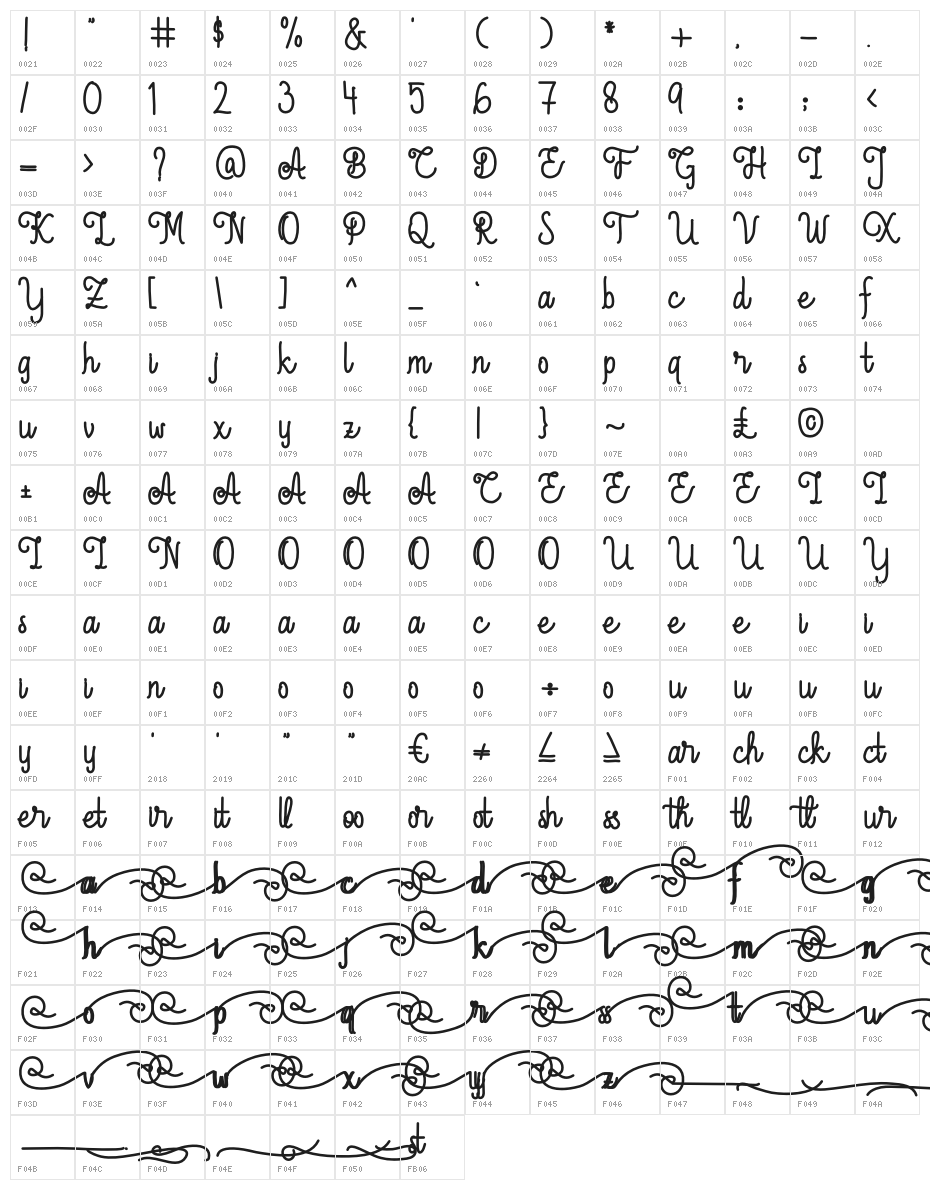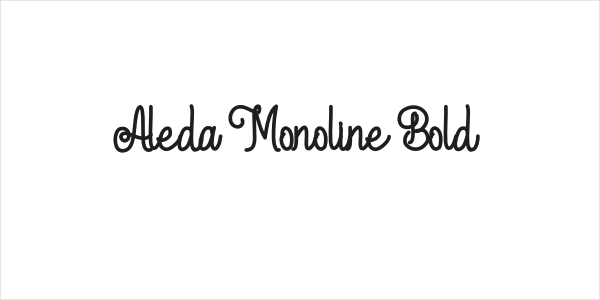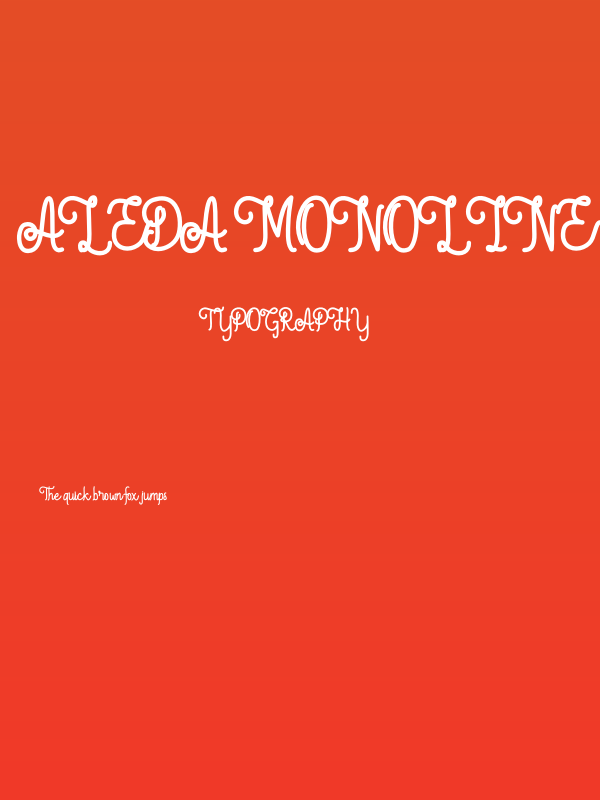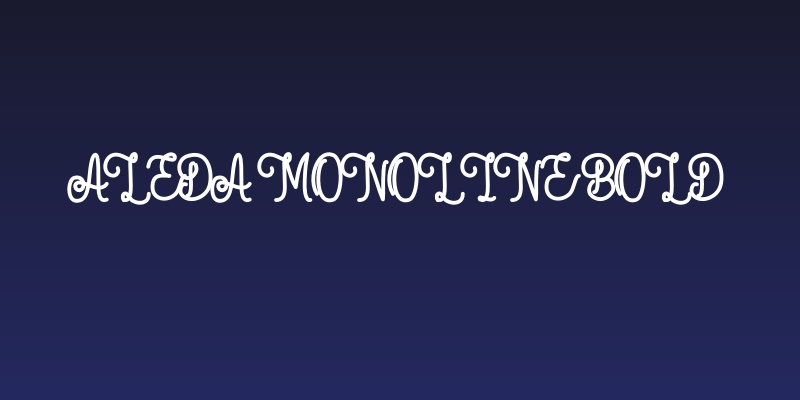
Aleda Monoline Bold Font
Aleda Monoline Bold Description
This font features a playful and whimsical monoline style with bold strokes. The characters are interconnected, giving it a handwritten, cursive appearance. The uppercase letters maintain a consistent height, while the lowercase letters exhibit a slight variation in size, adding to the font's charm. The numerals and special characters are designed to match the overall style, ensuring a cohesive look. The font's boldness makes it stand out, while the monoline aspect provides a smooth and continuous flow. It's ideal for projects that require a friendly and approachable aesthetic.
Use CaseLogos, Headlines, Invitations
Proposed ProjectsIdeal for greeting cards, invitations, playful branding, and children's book covers.